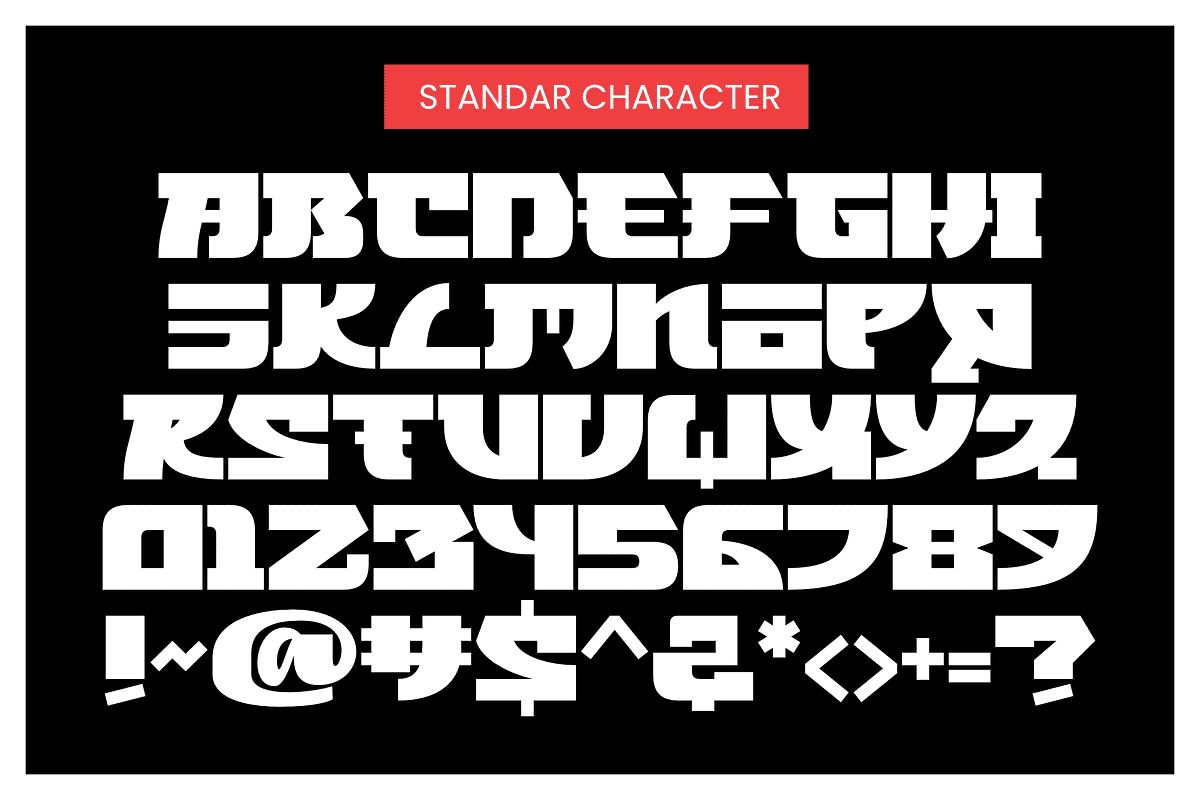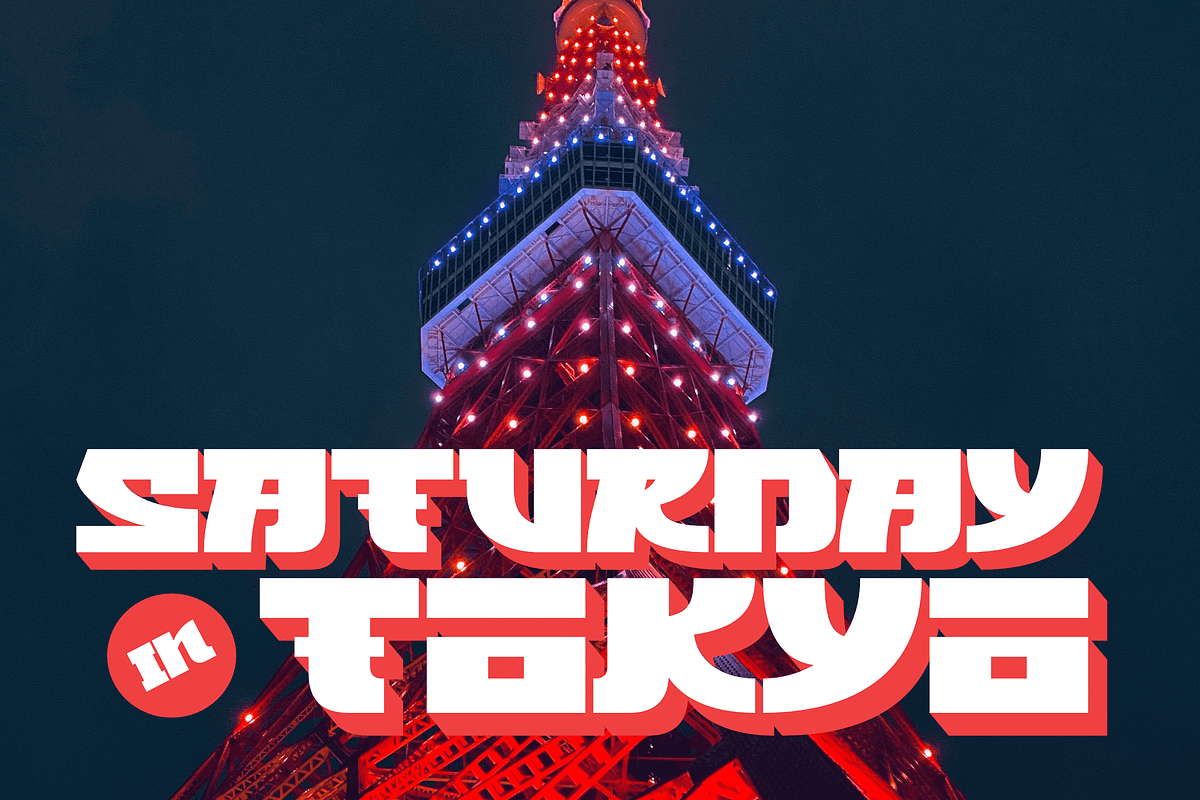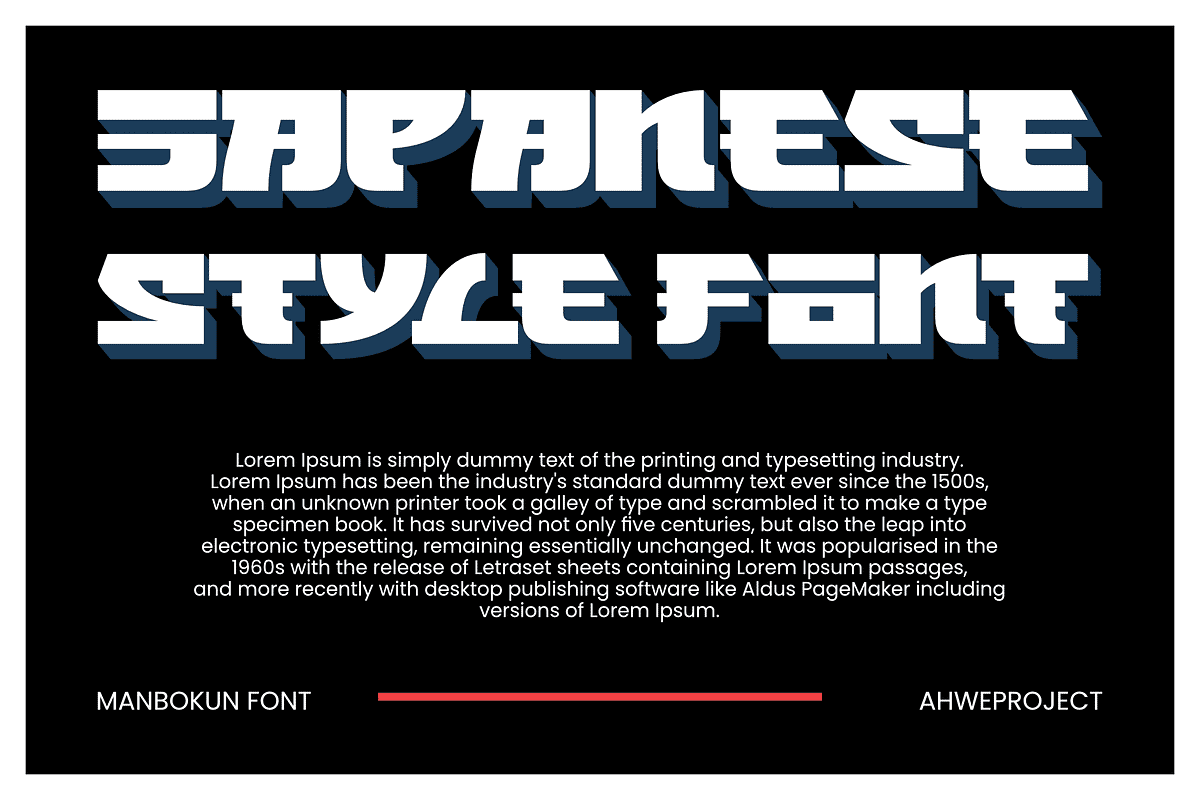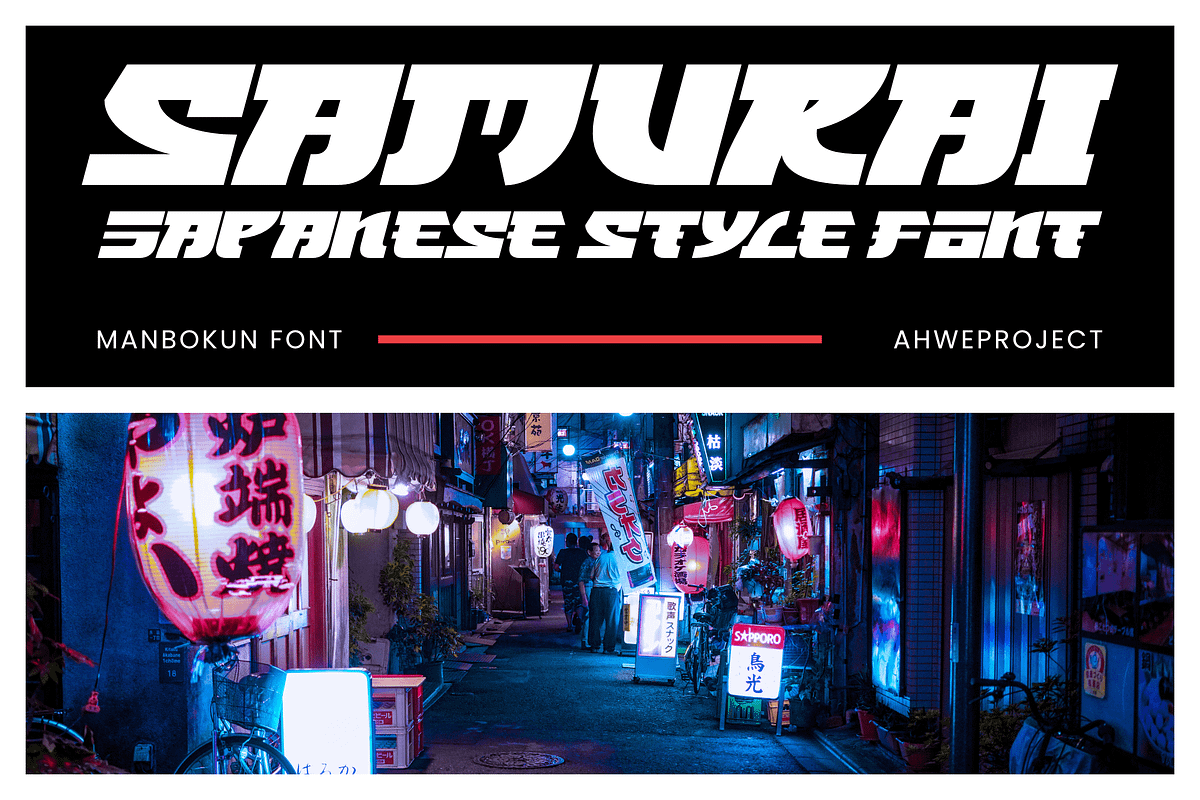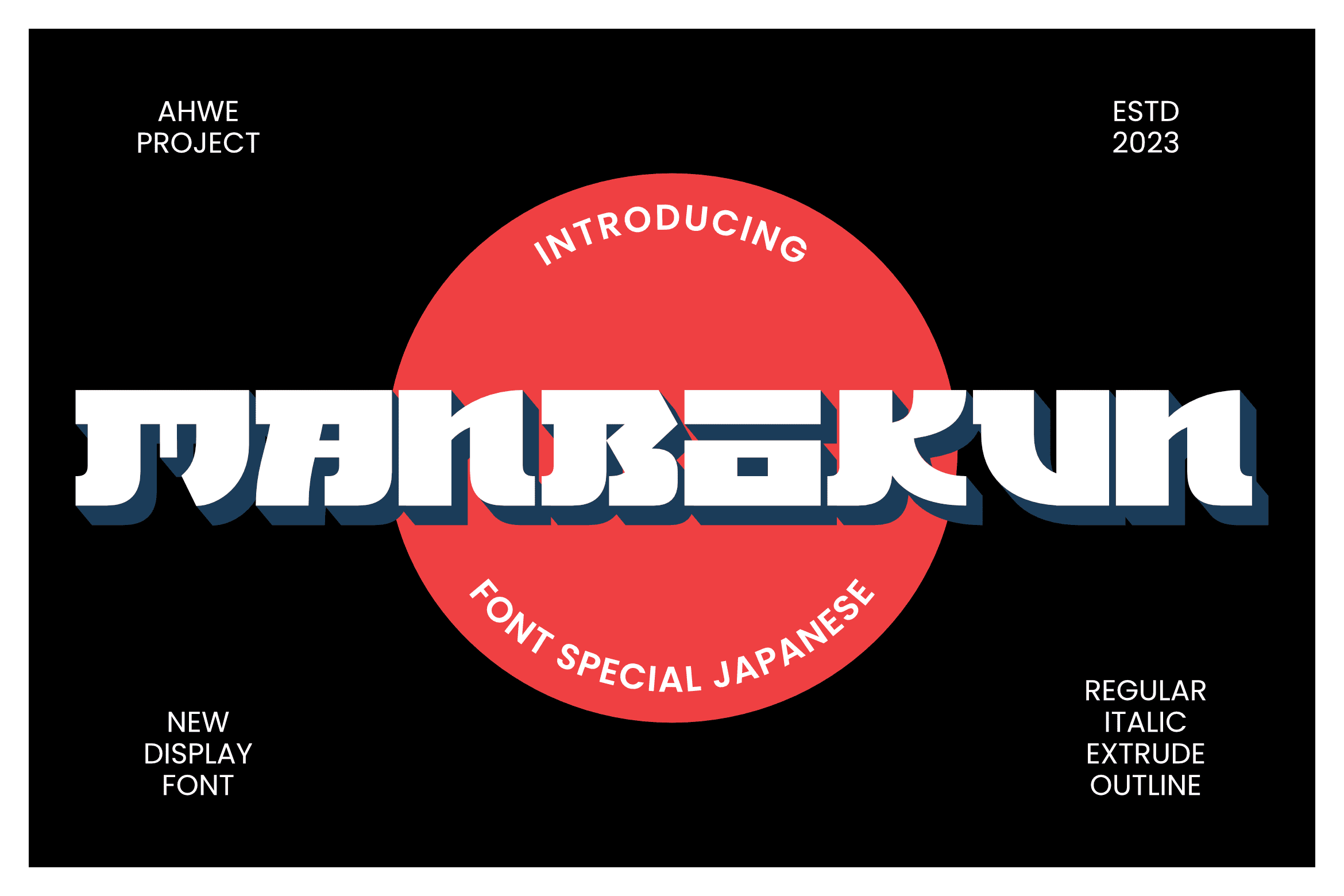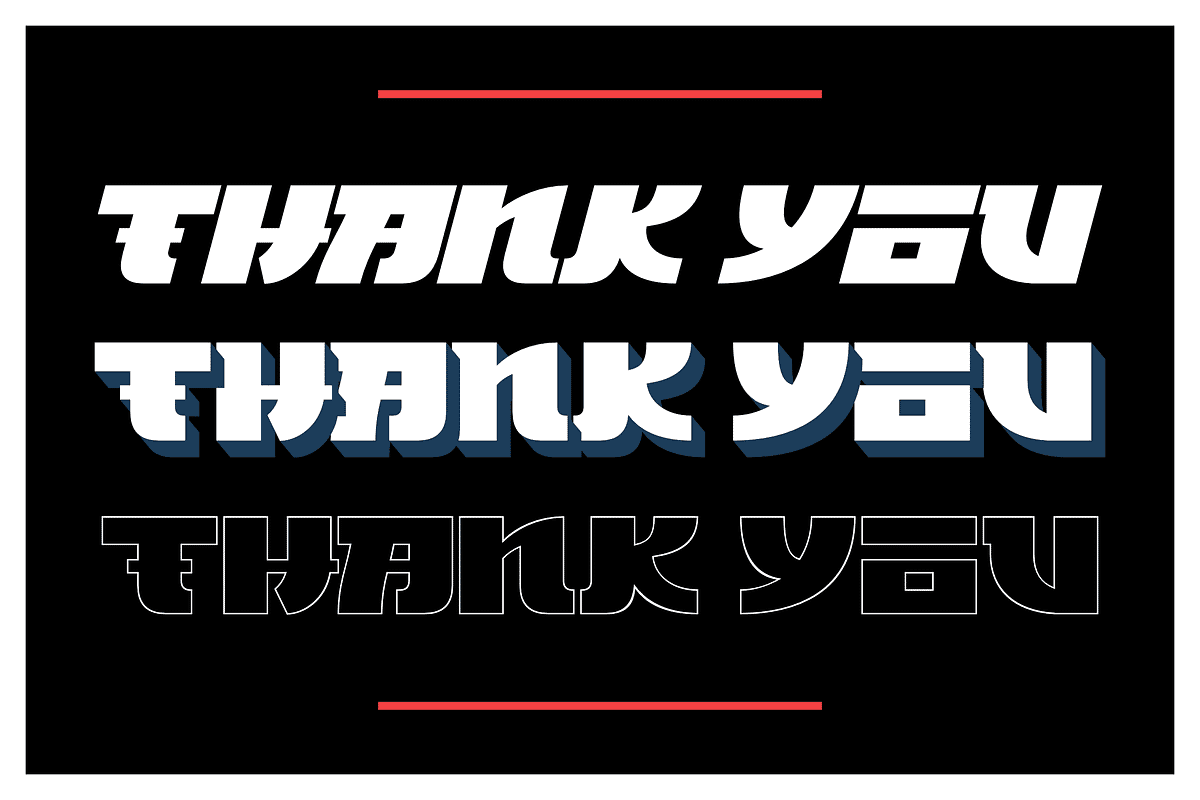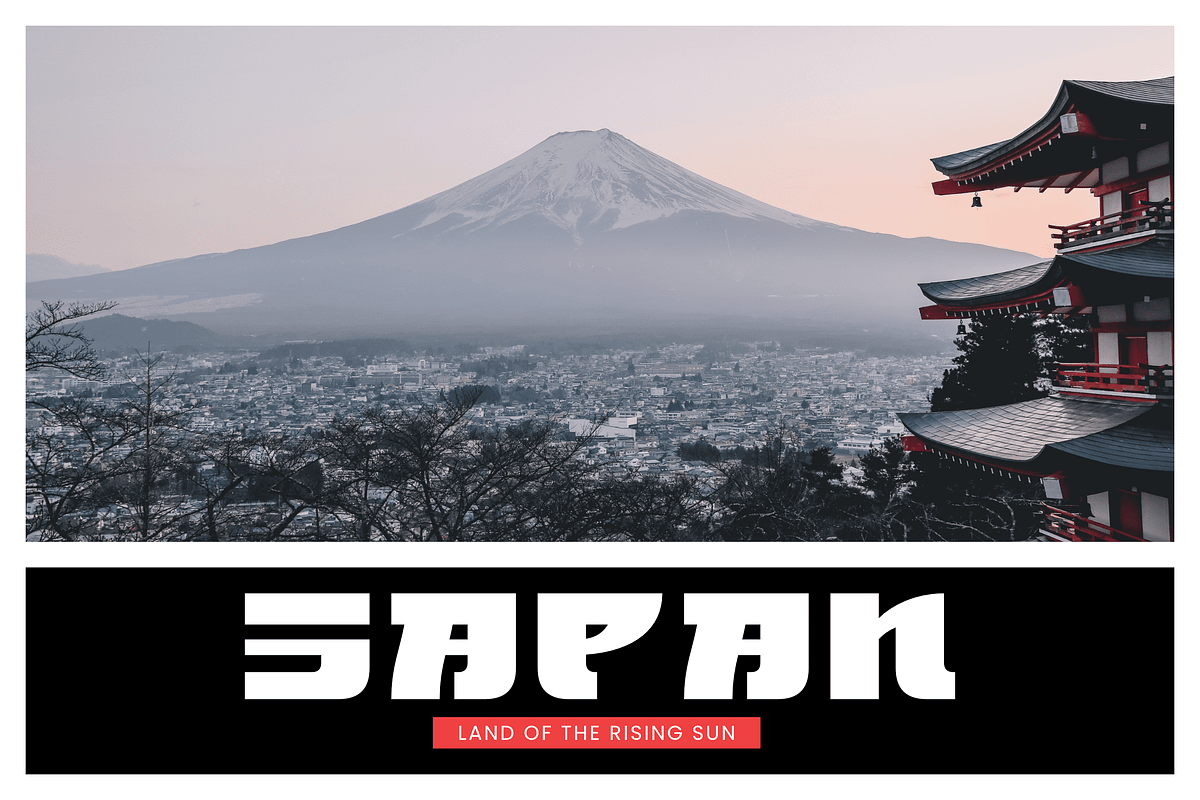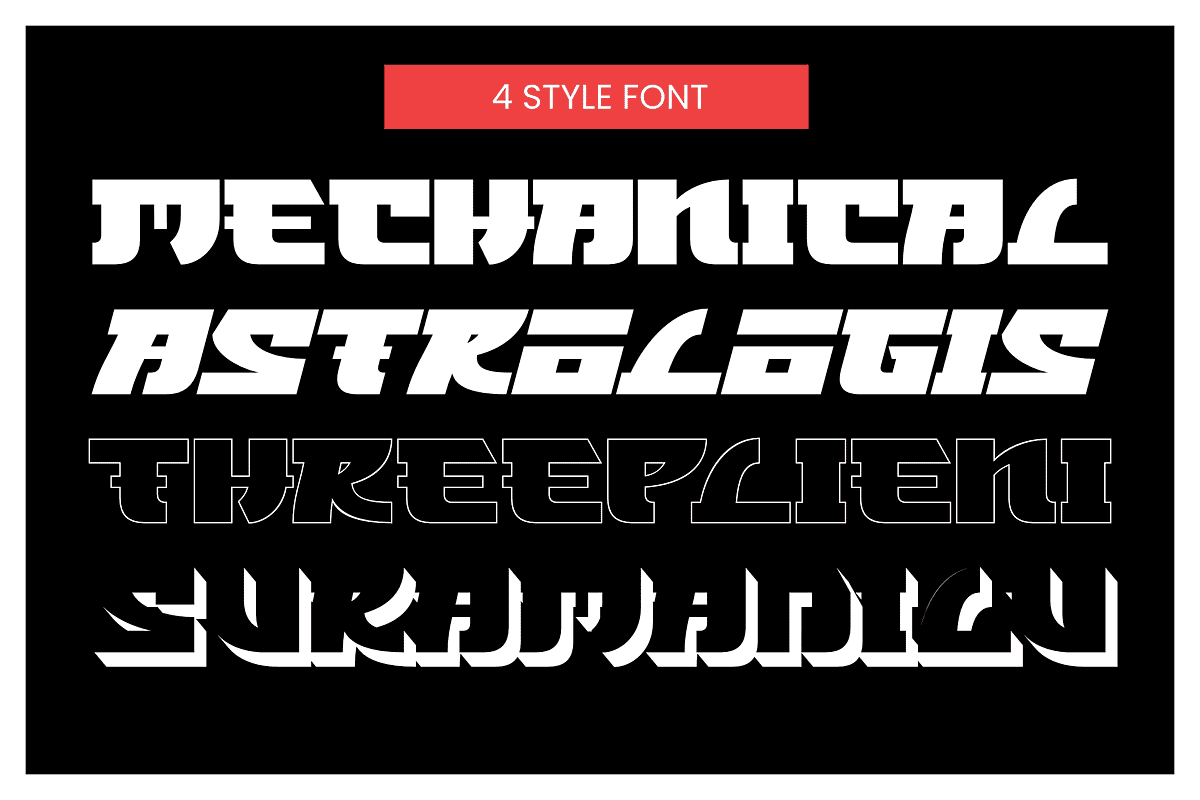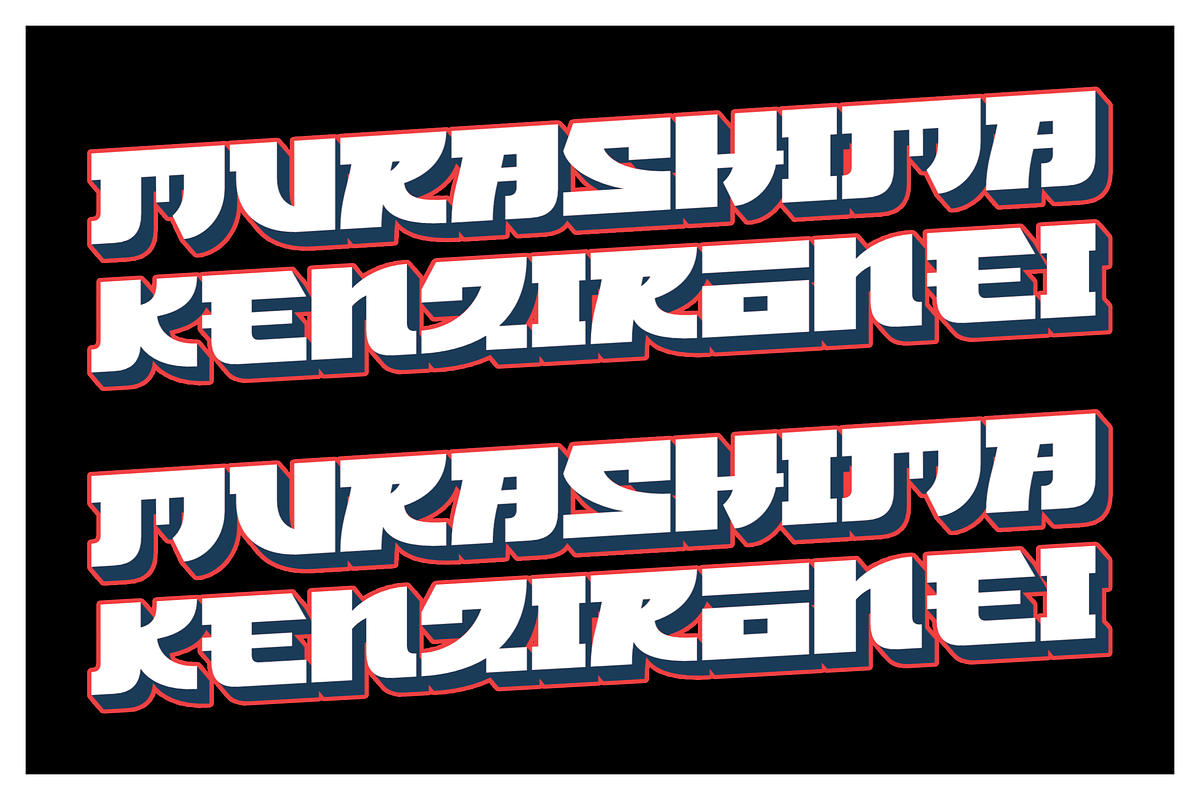
Manbokun - Font Special Japanese
Introducing Manbokun – a typeface that has a unique letterform inspired by Japanese kanji typography. Suitable for headlines, titles, logos, logotypes, posters, brochures, and more!